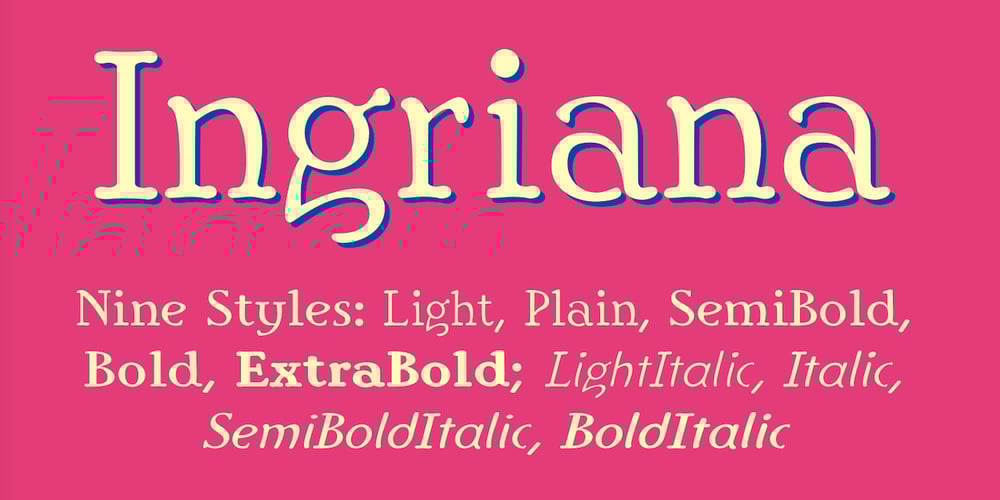
Ingriana Font Family was designed by Robert Schenk and published by Ingrimayne Type. Ingriana contains 9 styles and family package options. Ingriana is an informal, serifed typeface family with nine styles that is highly readable at small point sizes. Nothing else is quite like it.